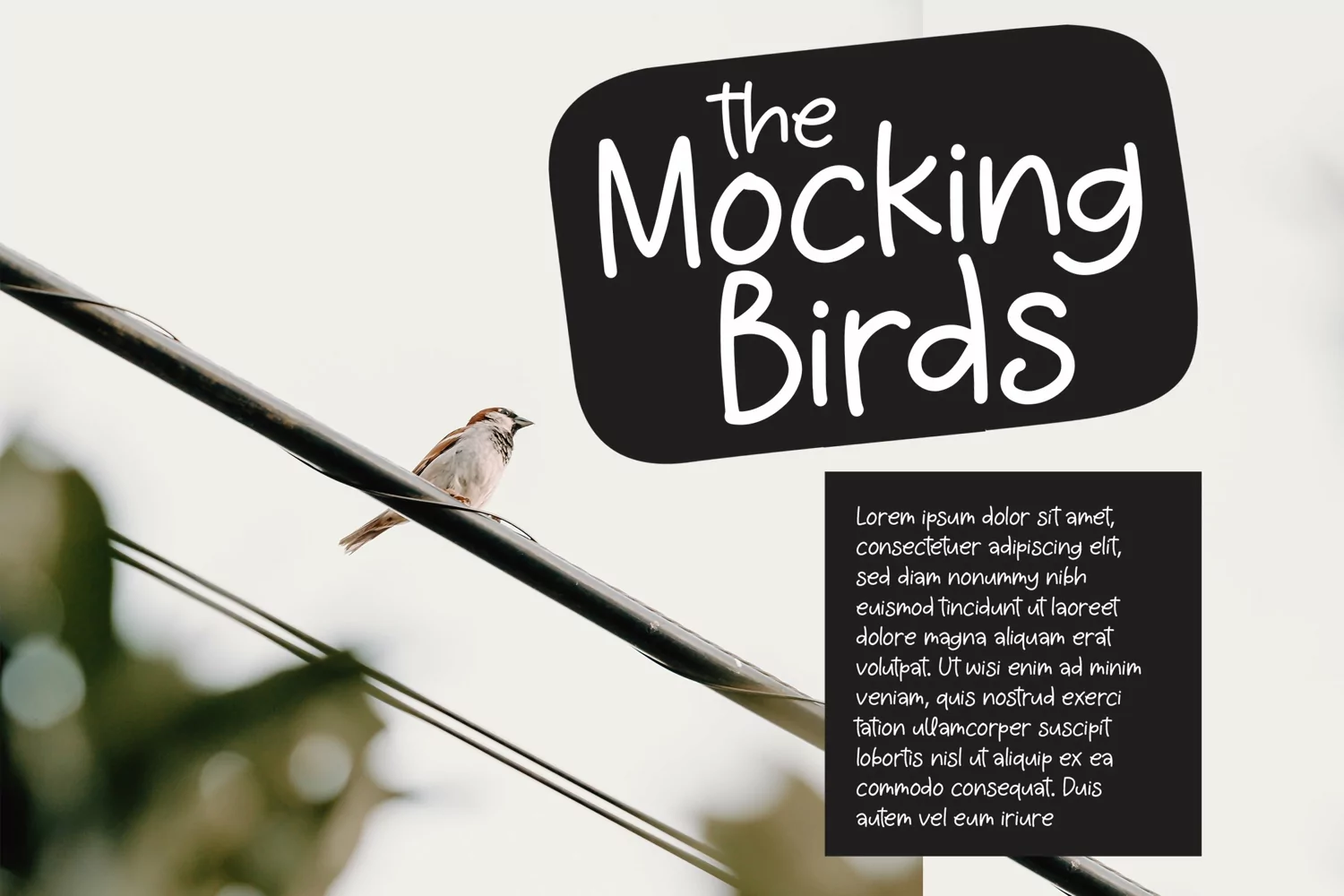
Bollauby - A handlettered Monoline Font
Bollauby - A handlettered Monoline Font that contain lowercase, uppercase, symbol, and also support multi language. There’s a lot ligatures in this font. This Font also comes with ligatures, alternates and many more. this font suitable for fashion, branding, catalog and other design what you want.